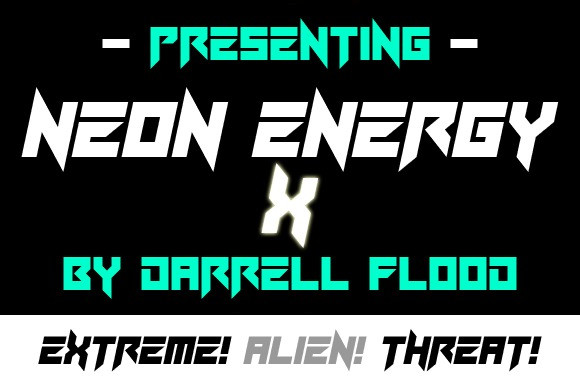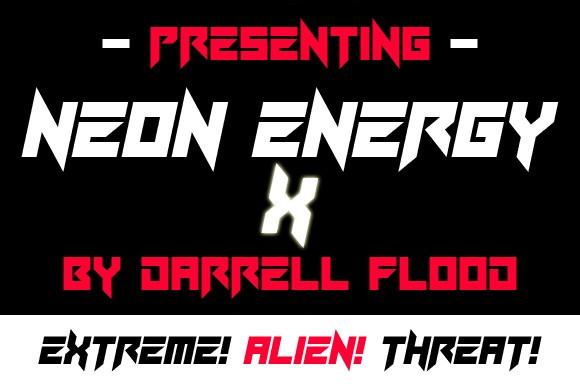
Neon Energy x Font
Neon Energy x Font, A razor sharp sci-fi font in an energetic, angular style. Perfect for high tech presentations, alien encounters, modern music titles, and general high impact use!